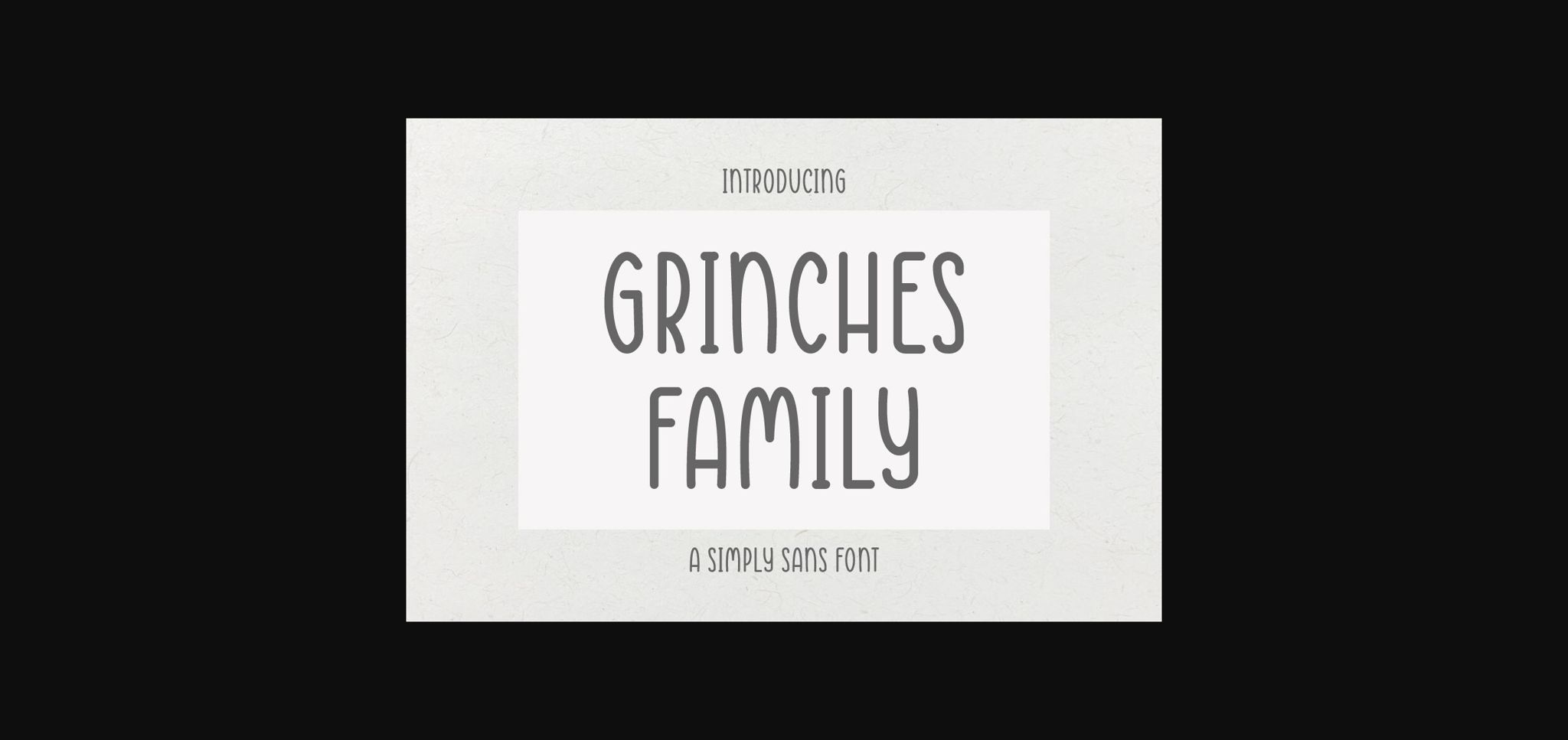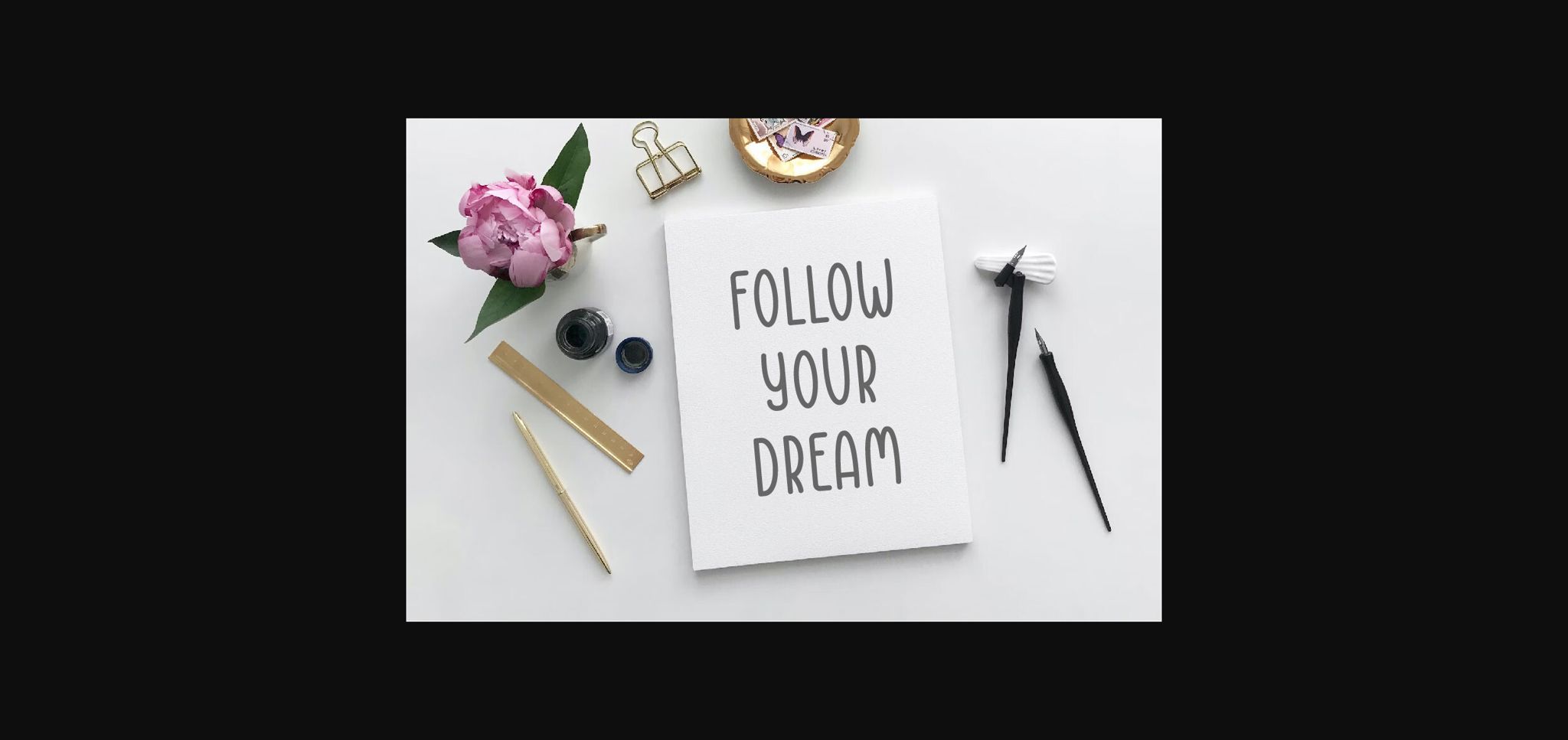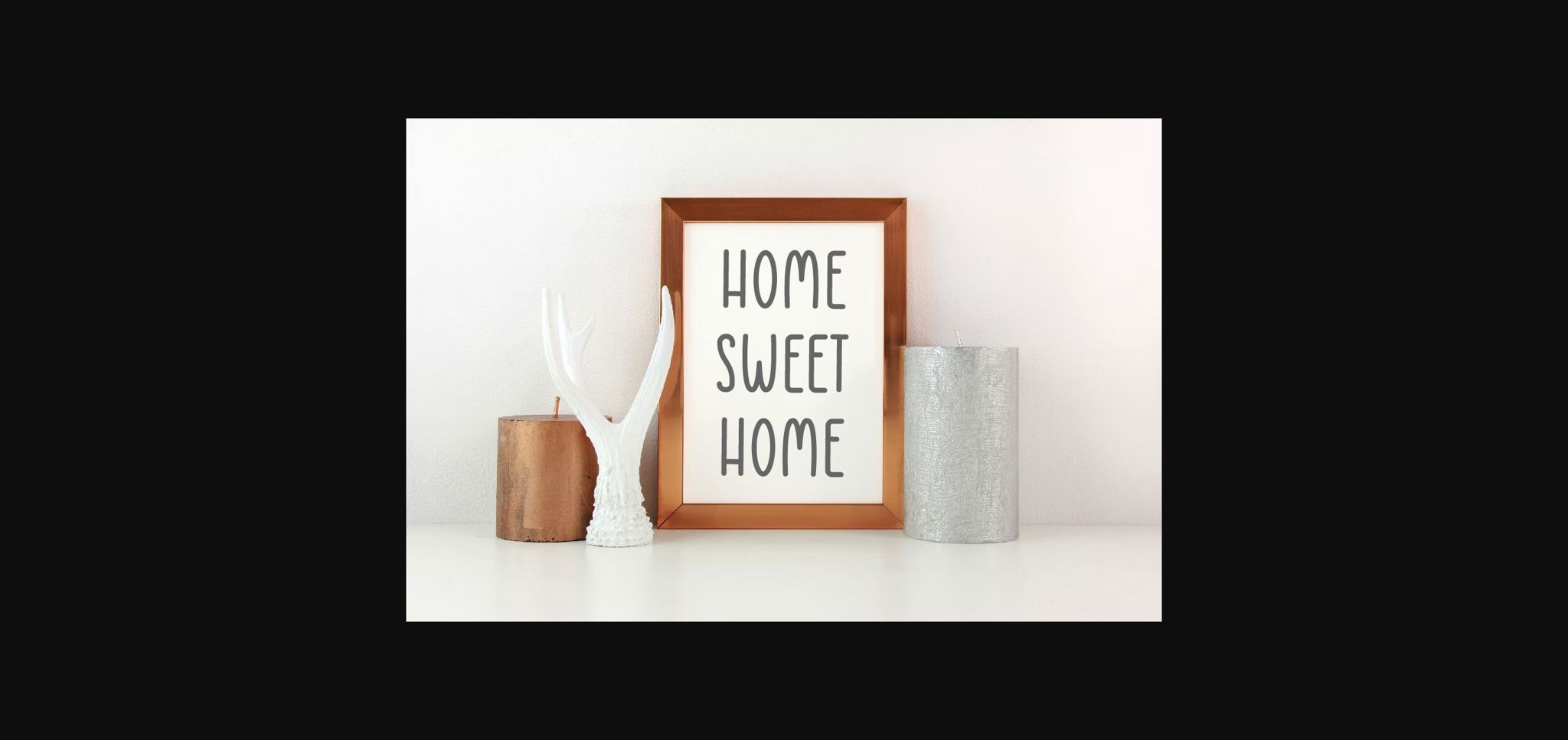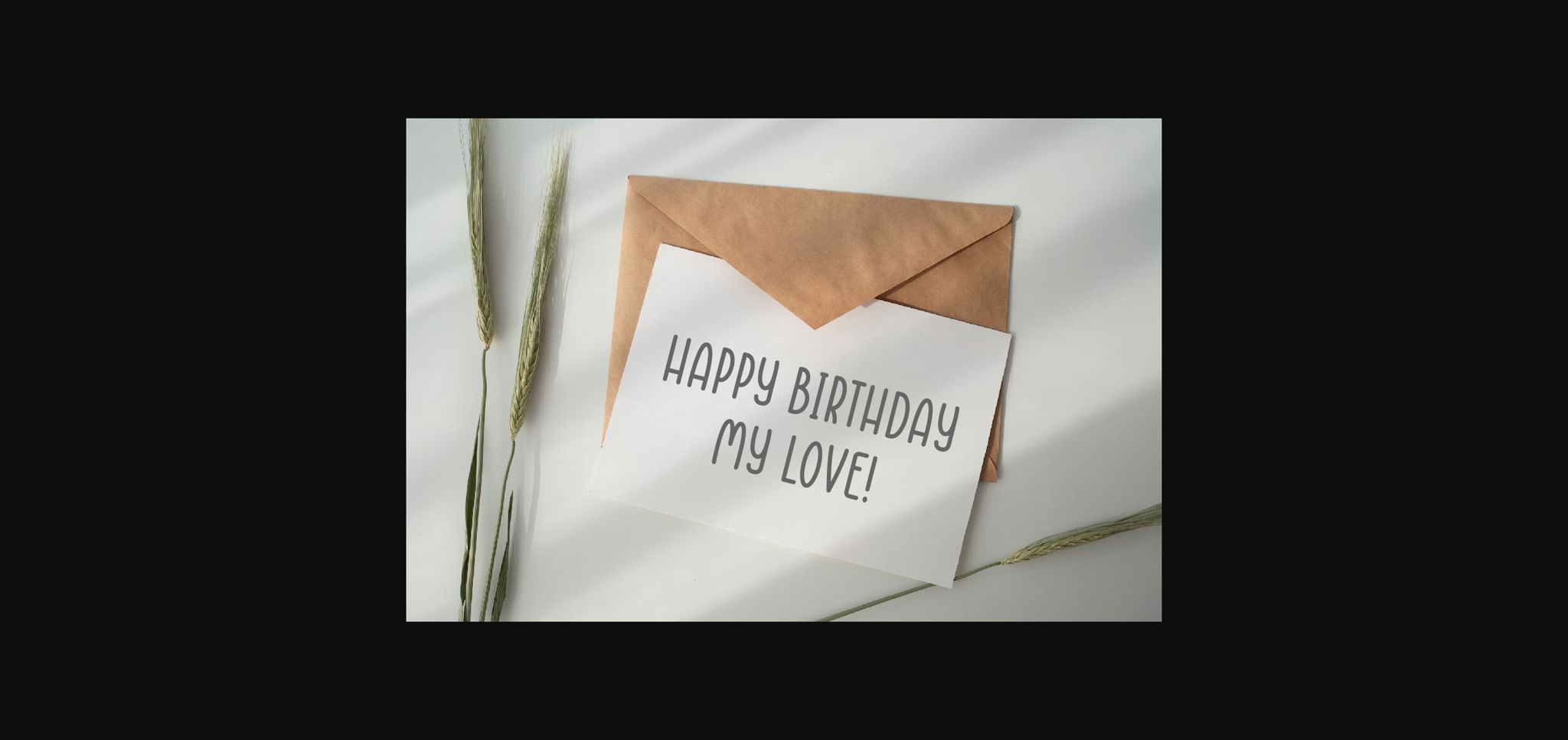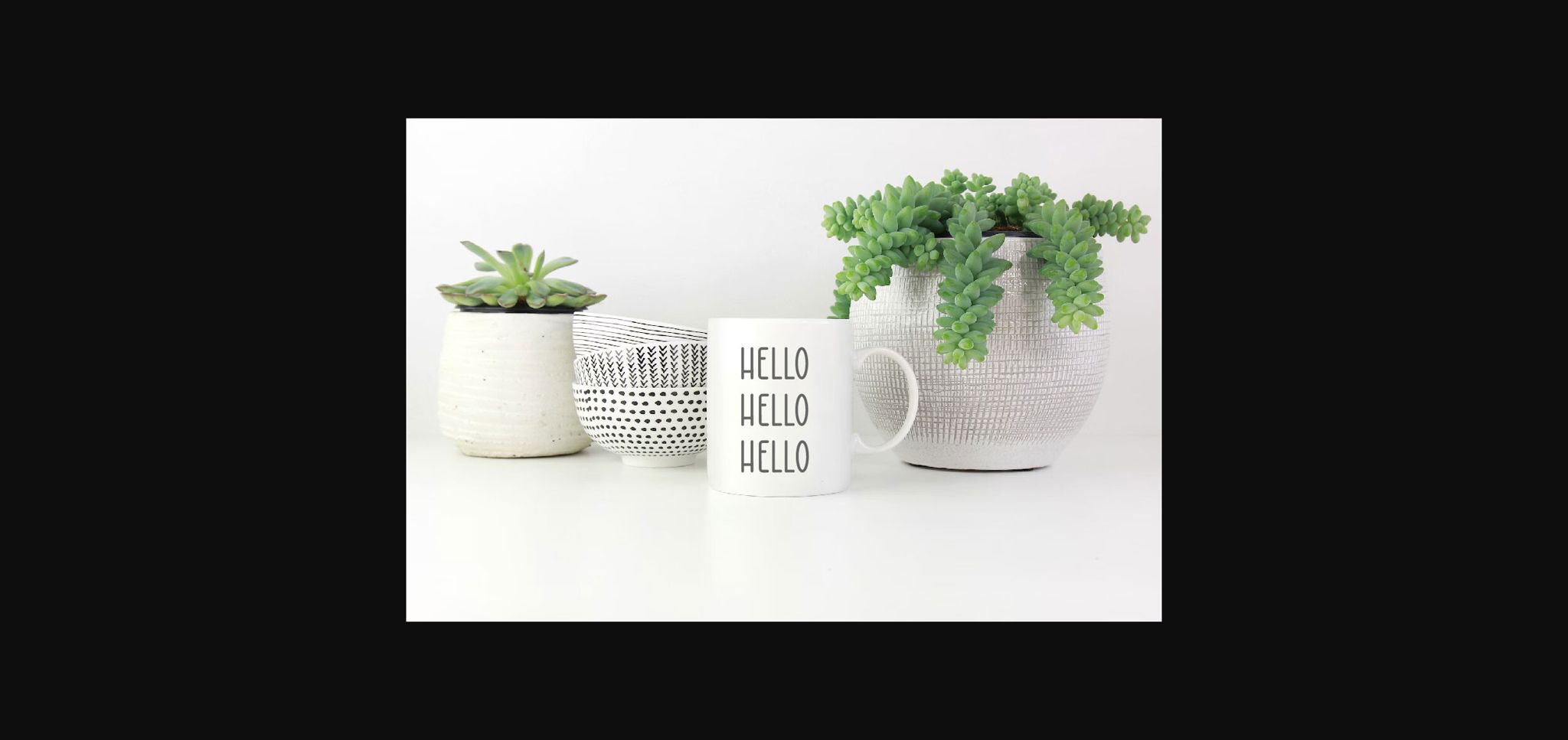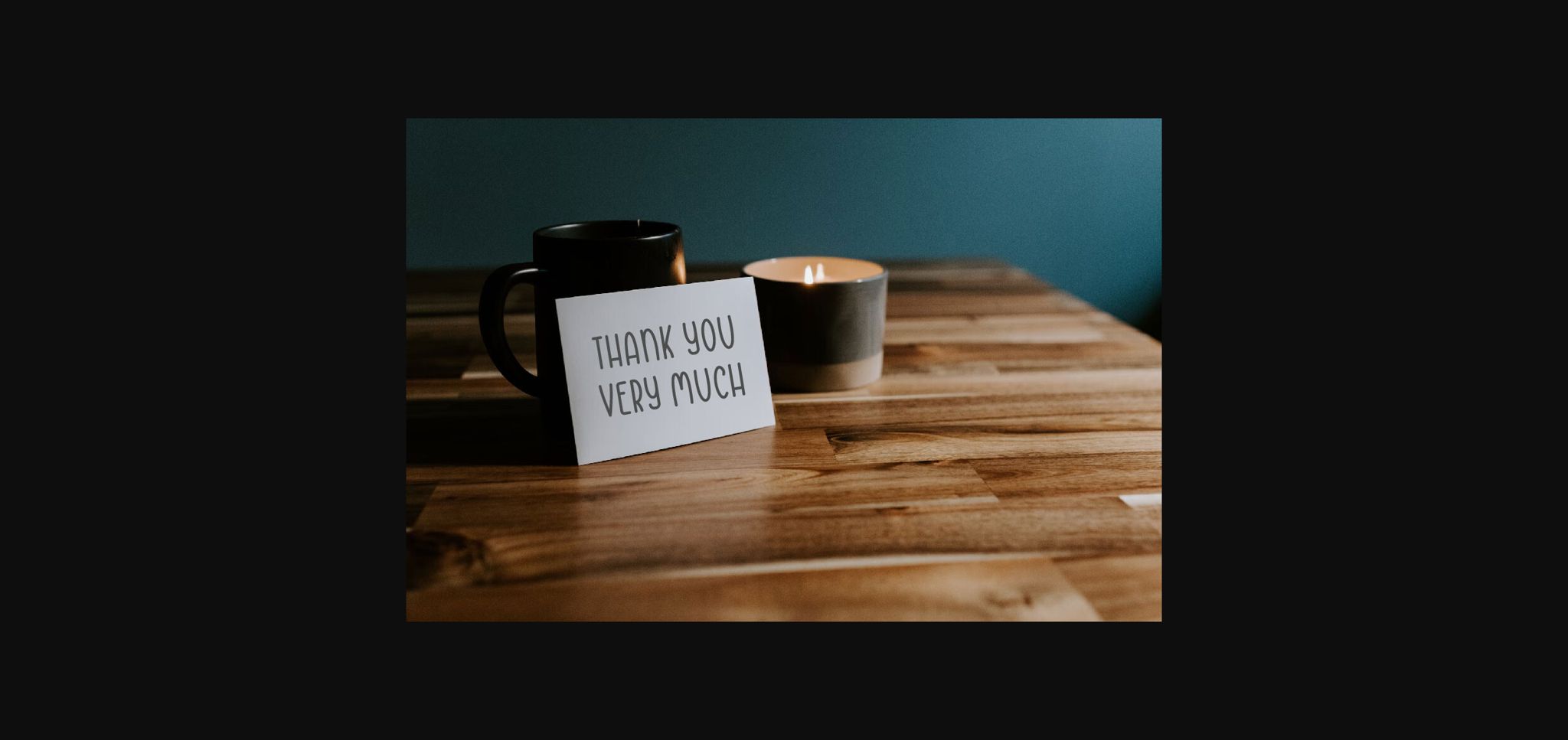
Grinches Family Font
About Grinches Family Font
Grinches Family is a simple sans-serif font designed for a clean retro look. With its vintage balanced proportions, this font is perfect for creating a minimalist aesthetic in lebel gift, greeting card, quotes, t-shirt design, mugs, wedding, birthday, kids, valentine, tattoos, logos, web design, and branding.